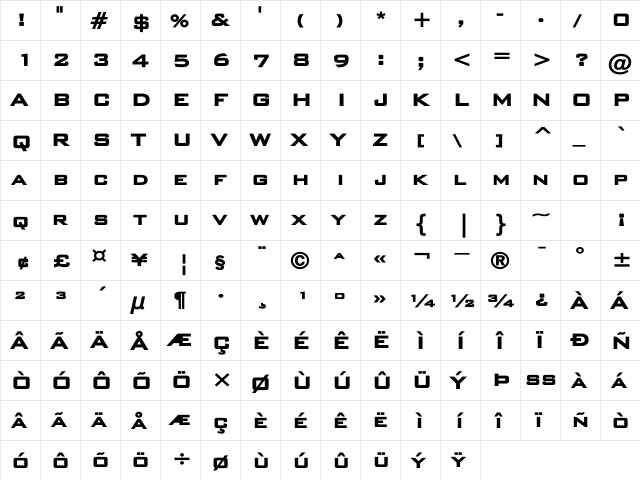
BankGothicLH Heavy
Design Context for BankGothicLH Typeface
BankGothicLH takes a clean, functional approach — its unadorned letterforms prioritise legibility and work reliably across screen and print environments.
Font Pairing: Works well alongside a characterful serif or display font that can carry the expressive load while BankGothicLH handles the functional copy.
Pro Tip: Use BankGothicLH for UI labels, navigation, and short-form body copy where clean legibility is the priority.